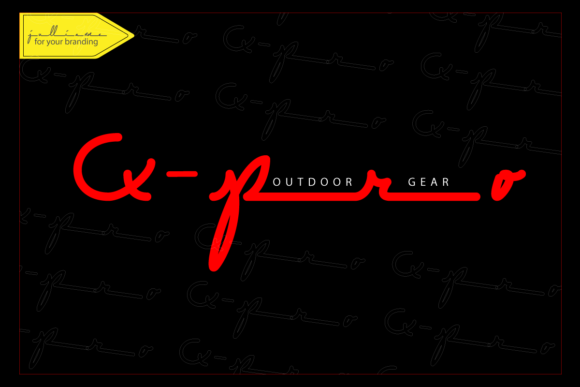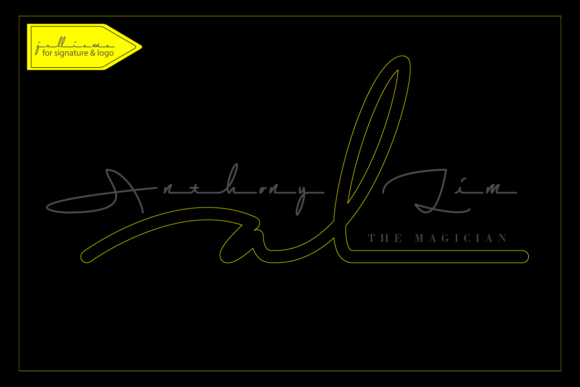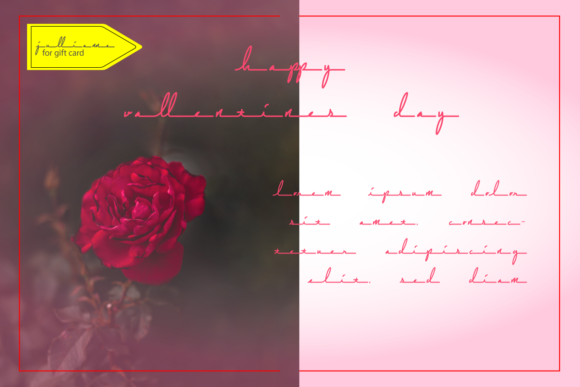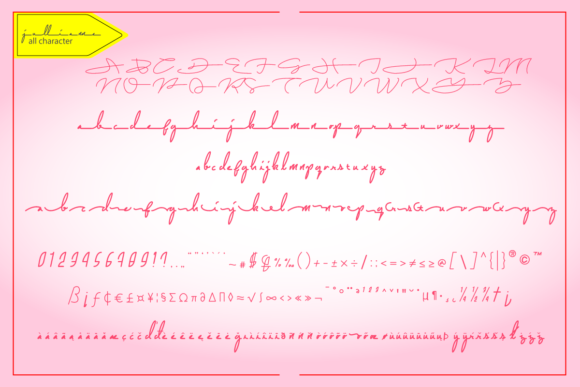
Jullianne Font
About Jullianne Font
Jullianne is a luxurious & minimalist font script with a monoline style. It will elevate any design project to the highest level.